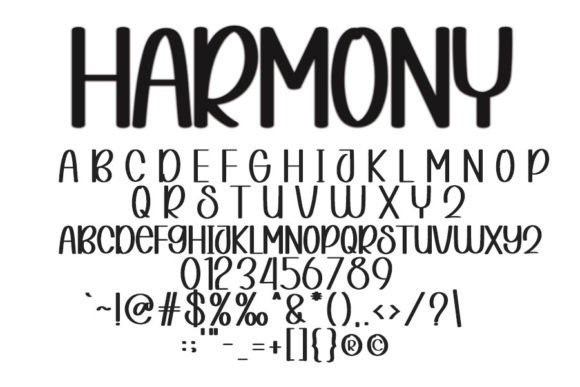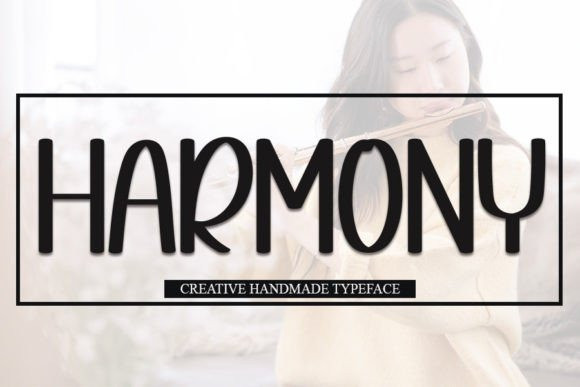
Harmony Font
Harmony Font is a creative handmade typeface. It’s perfectly suitable for flyers, wedding invitations, cards, logos, banners, birthday cards, and more.